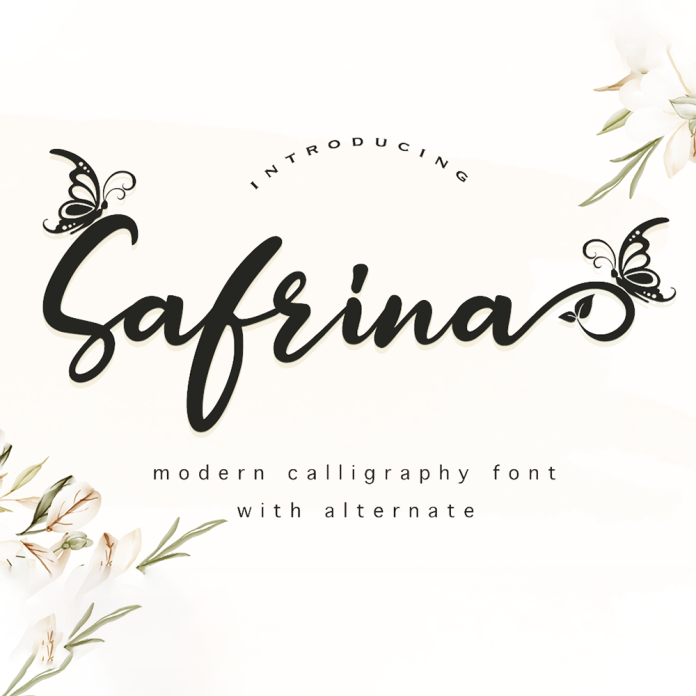
Safrina Font is a luxurious and elegant decorative font that exudes sophistication. With intricate flourishes and ornate details, this premium font is perfect for adding a touch of glamour to invitations, branding, and other design projects. Its unique style sets it apart from traditional fonts, making it a standout choice for those looking to make a statement with their typography.